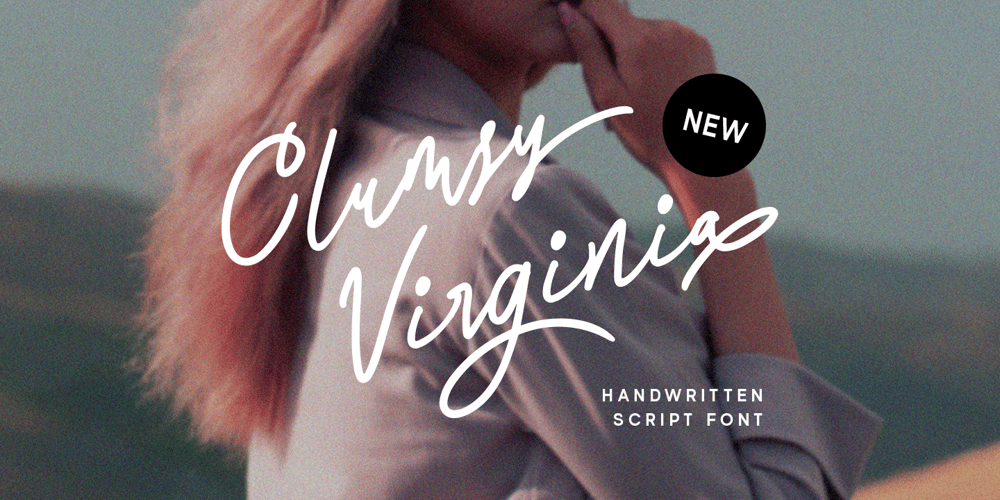
Clumsy Virginia Font Family was designed by Hendry Juanda and published by Letterhend. Clumsy Virginia contains 1 styles and family package options. Introducing Clumsy Virginia, a delightful handwritten script font that effortlessly combines casual charm with a touch of chic. Its playful strokes and natural flow capture the essence of relaxed elegance, making it the perfect choice for a variety of creative projects. Whether you’re designing invitations, branding materials, or social media graphics, Clumsy Virginia adds a unique and captivating personal touch.Features : Uppercase & lowercase Numbers and punctuation Alternates & Ligatures Multilingual PUA encoded We highly recommend using a program that supports OpenType features and Glyphs panels like many of Adobe apps and Corel Draw, so you can see and access all Glyph variations.